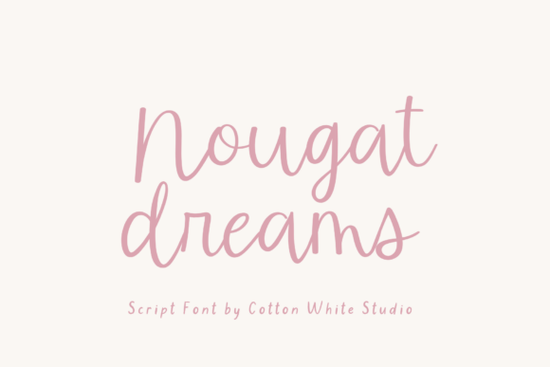
If you're looking for a script font that feels personal and warm like something drawn by hand with care Nougat Dreams Font might be exactly what your next project needs. This handwritten-style typeface brings a soft, authentic touch to designs, making it perfect for anything from wedding invitations to social media posts.
What makes Nougat Dreams Font stand out?
Nougat Dreams isn’t just another cursive font. It has a natural flow, subtle variations in stroke width, and slight imperfections that give it an organic feel. These small details make it look less digital and more like it was written with a real pen or brush. That handmade quality adds personality especially useful when you want your design to feel inviting and thoughtful.
Whether you're creating a logo for a boutique business, designing a birthday card, or planning a themed event, this font helps convey warmth and sincerity. It works well in both bold headlines and delicate body text, depending on how you adjust the size and spacing.
Where can I use Nougat Dreams Font?
This versatile script fits into many creative spaces:
- Wedding stationery – From save-the-dates to menu cards, its elegant curves add charm without overpowering.
- Branding & logos – Great for cafes, boutiques, or lifestyle brands aiming for a cozy, artisan vibe.
- Social media graphics – Use it in Instagram stories, Pinterest pins, or Facebook posts to draw attention with a friendly tone.
- Print-on-demand items – Ideal for T-shirts, mugs, tote bags, and stickers where a personal touch boosts appeal.
- Planners & journals – Perfect for bullet journal layouts, quote pages, or daily reminders.
- Greeting cards & packaging – Makes gifts feel extra special, especially for birthdays, baby showers, or thank-you notes.
How does it compare to other script fonts?
While there are many handwritten-style fonts out there, Nougat Dreams stands out for its balance between readability and artistry. Some fonts lean too much toward decorative flair, making them hard to read at smaller sizes. Others feel stiff or overly uniform. This one strikes a sweet spot: expressive but still legible.
If you’ve tried similar fonts like Choco Mocha Font, DaddyDays Font, or Frustiani Font, you’ll notice Nougat Dreams offers a gentler rhythm and a slightly softer curve more like a quiet morning sketch than a dramatic flourish.
For those who love playful yet refined styles, Almond Deligt Font shares some similarities, but Nougat Dreams leans more toward everyday elegance. And if you’re exploring sublimation projects, Sublimation Font is worth checking out for its compatibility with heat transfer materials though Nougat Dreams also works well there, especially for soft, pastel-themed designs.
You can also pair it with clean sans-serif fonts (like Montserrat or Lato) to create balanced layouts. The contrast between a soft script and a modern sans-serif often looks great, especially in branding or blog headers.
Final thoughts
If you value authenticity in your designs and want a font that feels like it was made with heart, Nougat Dreams Font delivers. It’s not flashy, but it’s consistent, reliable, and full of character. Whether you're a small business owner, a crafter, or someone who loves sharing handmade vibes through digital content, this font adds just the right amount of warmth.